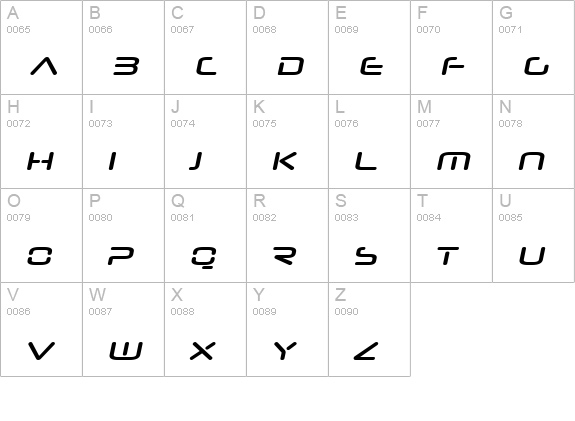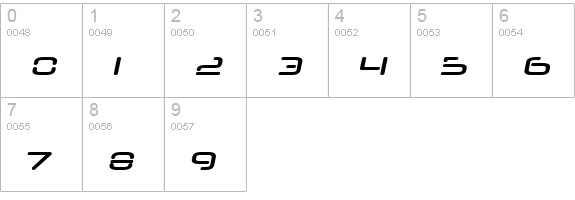
Neuropol Nova Xp Bold Italic is a strong, high-contrast, italic variant in the Neuropol typeface family \xE2\x80\x94 well suited to headlines, attention-grabbing titles, and strong calls-to-action.
Neuropol Nova Xp Bold Italic font is a striking and modern typeface that exudes a futuristic and tech-savvy vibe. With its bold and italic design, this font is perfect for creating eye-catching headlines, titles, and branding materials. The sleek and dynamic look of Neuropol Nova Xp Bold Italic font makes it ideal for projects that require a contemporary and edgy touch. The best part about Neuropol Nova Xp Bold Italic font is that it is freely available to download at FontsMarket.com. You can easily access this cutting-edge font and elevate your designs with its bold and italic style. Whether you're working on digital designs, posters, websites, or any other creative project, Neuropol Nova Xp Bold Italic font will help you make a bold statement. Download it now and take your designs to the next level!